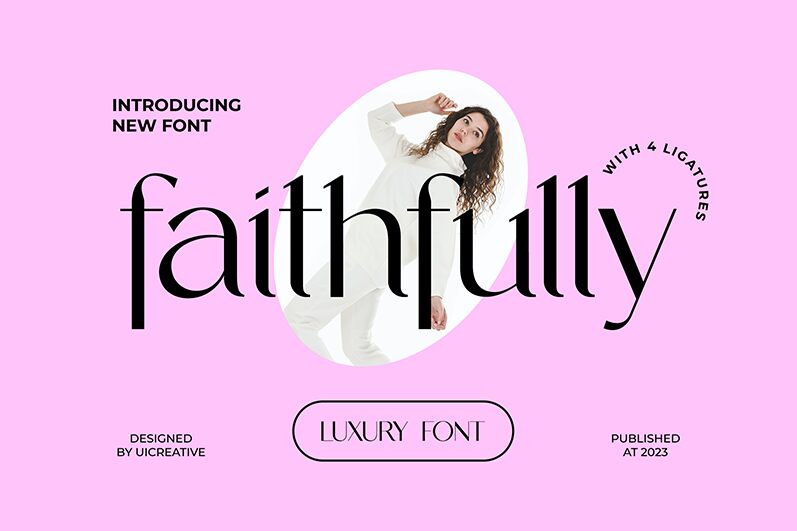
Faithfully
Faithfully, crafted by UI Creative, stands as a paragon of elegance and refinement. Its graceful curves and high contrast between thick and thin strokes evoke a sense of timeless sophistication. The font's elongated, slender characters exude a delicate charm, making it ideal for projects that demand an air of luxury and grace.
Perfect for high-end branding, wedding invitations, or editorial designs, Faithfully's exquisite style enhances readability while maintaining an artistic flair. Its distinctive features ensure that any text set in this font will stand out with poise and understated beauty. Whether for print or digital media, Faithfully adds an element of classic elegance to your design repertoire.